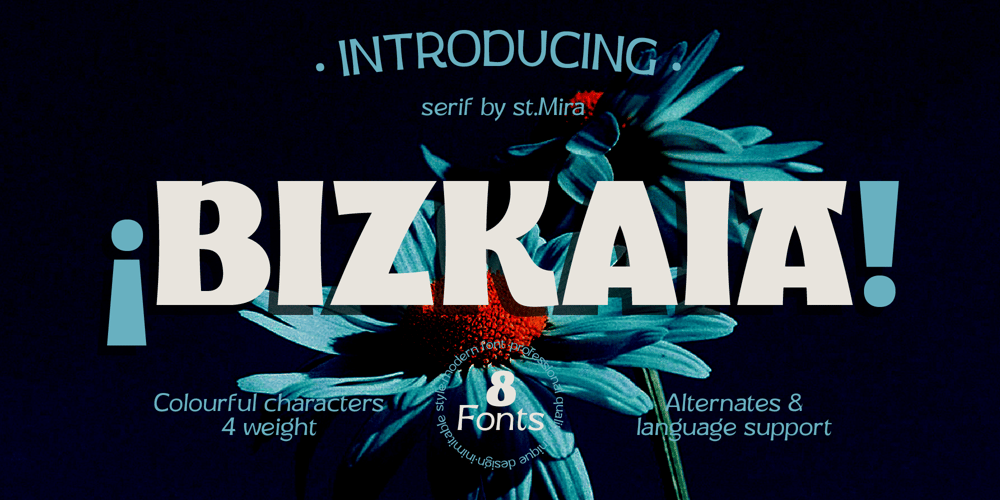
Bizkaia Font Family was designed by Tatiana Yunina and published by Mira. Bizkaia contains 8 styles and family package options. The Bizkaia font embodies the atmosphere of cozy restaurants and cafes, as well as authentic advertising found in the narrow streets of Bilbao, located in the Basque Country. Inspired by the unique charm of this region, the Bizkaia font perfectly captures its authentic character and distinctive aesthetics.Featuring four weights and an italic style, Bizkaia offers a wide range of creative possibilities. The applications of the Bizkaia font are endless. It’s perfect for designing restaurant menus, creating eye-catching headlines on product packaging, designing advertising banners, and much more. The unique style and authenticity of Bizkaia will surely grab attention and add charm to your projects.Immerse yourself in the atmosphere of the cozy streets of Bilbao and feel its unique spirit with the Bizkaia font. Download it now and add a distinctive style to your designs!